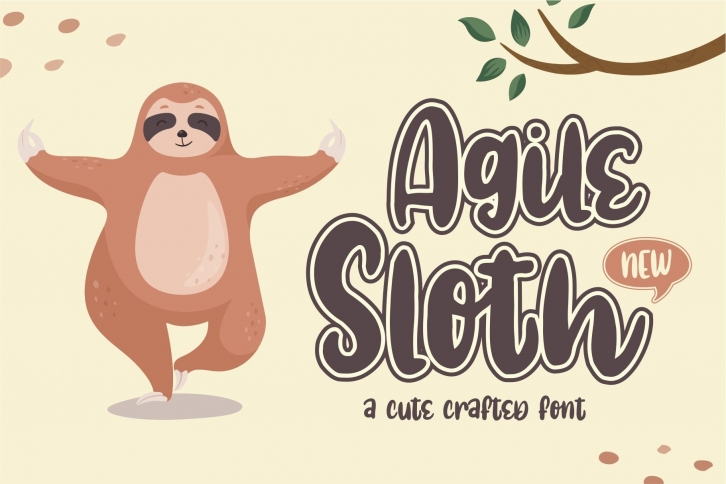
Agile Sloth is a trendy and unique font with an authentic style. It was designed by AZetype and it's a great choice for creative people who need such a font. It was released on April 16, 2020 and the file size is 6.12 MB. Agile Sloth will add an organic vibe to any design idea!